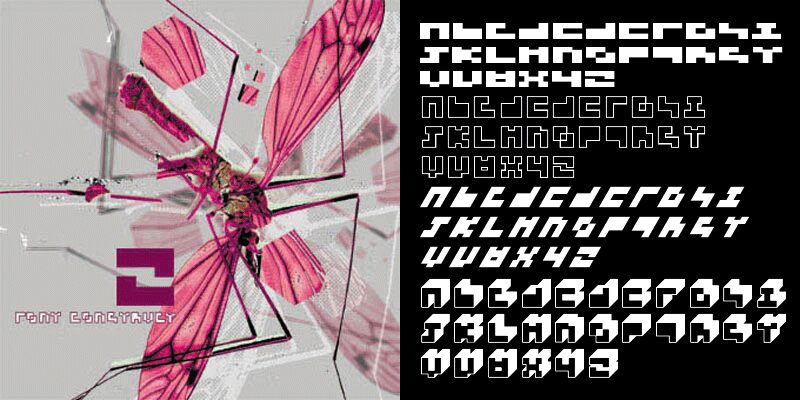
3x3 Italic, designed by Marc Beekhuis, is a free pixel display font built from massive slanted blocks and sharply stepped cuts. Its forward-driving silhouette feels blunt and mechanical.
Blocky game illustrations and angular interface graphics echo its construction, making it useful for retro arcade posters, electronic music covers, motorsport merchandise, and energy drink packaging. The same hard-edged sense of speed connects those settings, where the lettering can become a racing stripe, interface fragment, or angular emblem instead of neutral text.